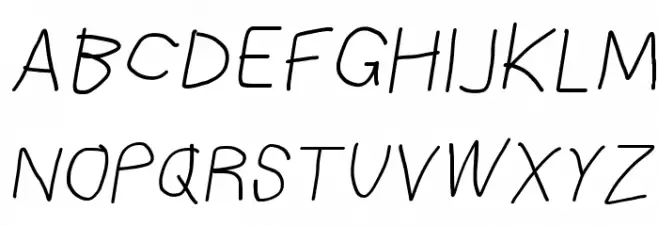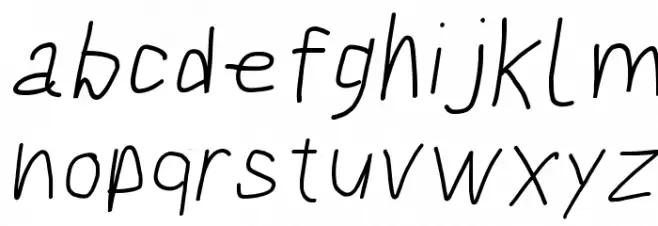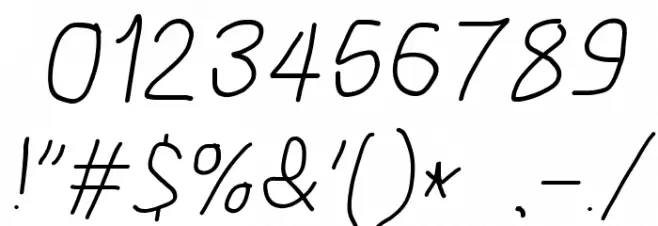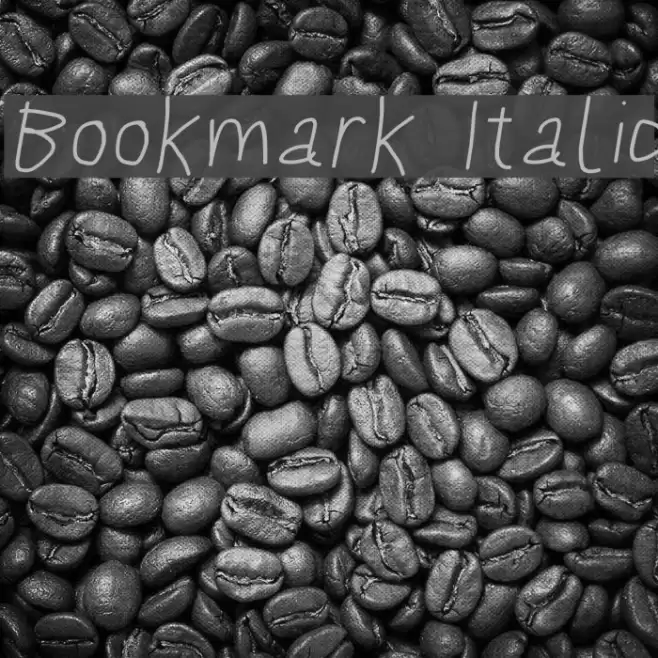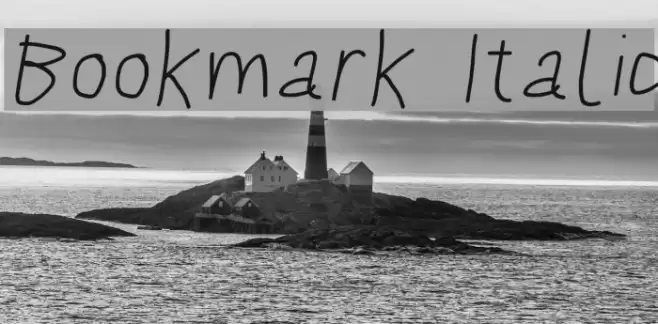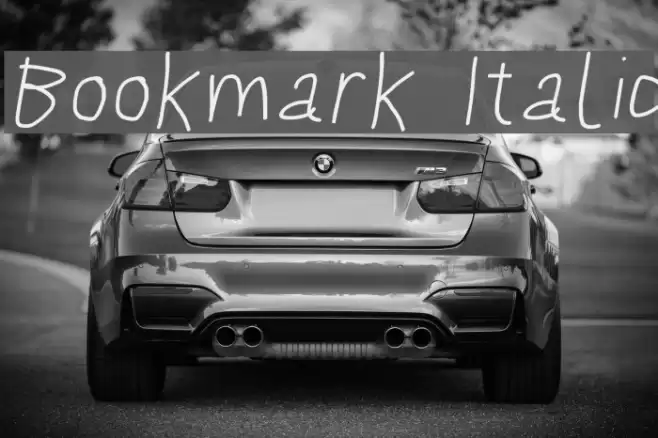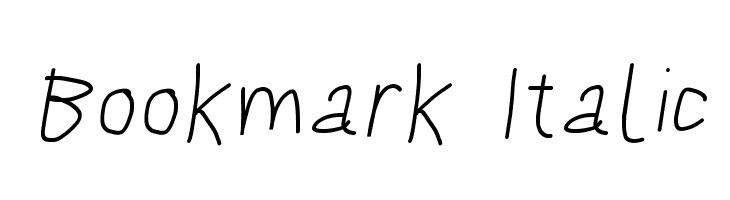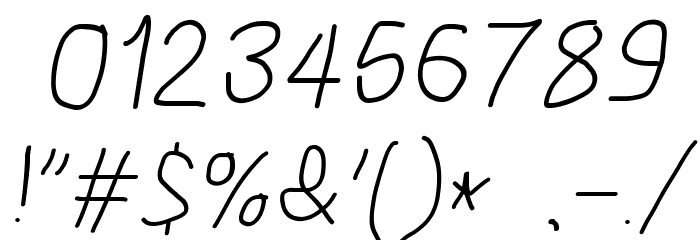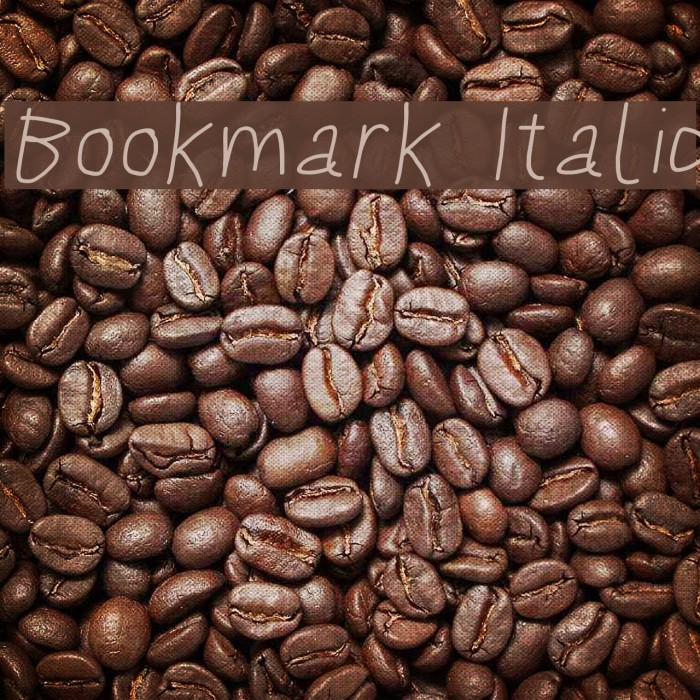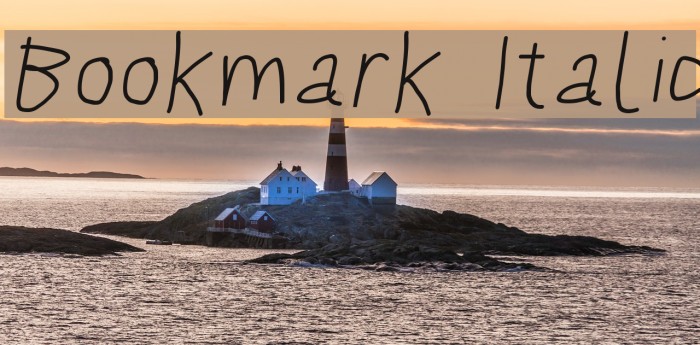
Bookmark Italic
This font features a casual, handwritten style with a slight slant, giving it an informal and approachable appearance. The characters are crafted with a consistent stroke width, maintaining a uniform look throughout. The uppercase and lowercase letters are distinct, with the lowercase letters exhibiting a playful, rounded form. The numerals are clear and legible, complementing the overall style. Special characters are included, maintaining the same handwritten aesthetic. This font is versatile, suitable for projects that require a personal touch.
A casual, handwritten font with a slight slant and consistent stroke width.
- Proposed Projects: Ideal for personal notes, invitations, casual branding, and social media graphics.
- Overall Style: Casual
- Use Case: Headlines, Informal text, Personal projects